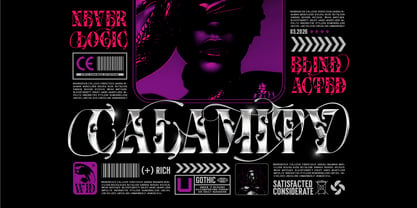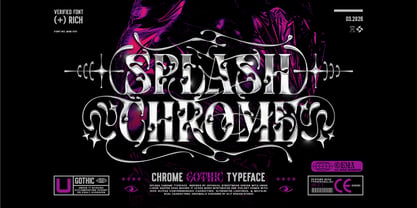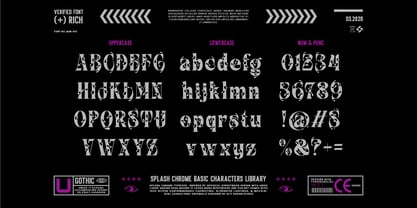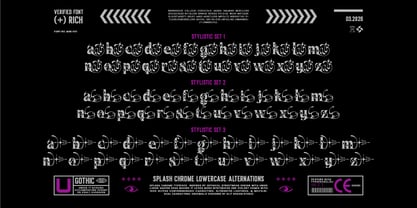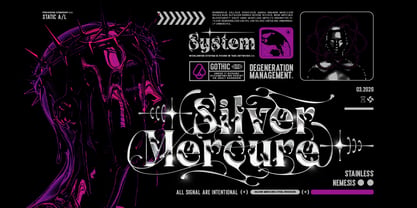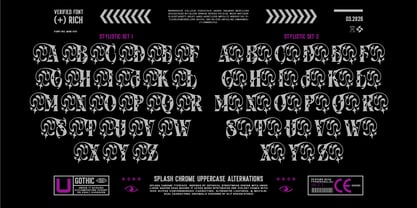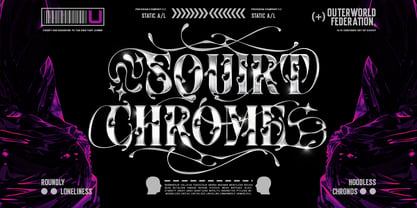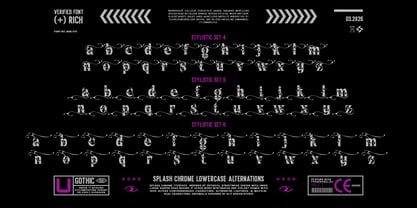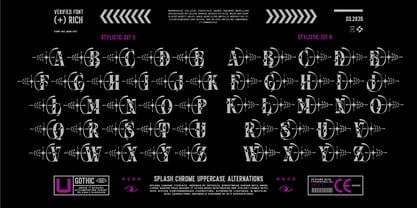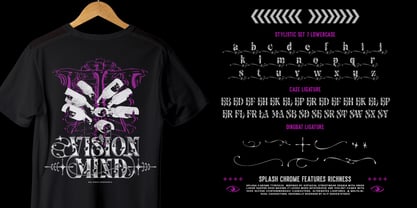
Splash Chrome
by Alit Design
The Splash Chrome Font Family was designed by Alit Suarnegara and published by Alit Design. Splash Chrome contains 1 styles. More about this family
Splash Chrome – The Future of Liquid Typography Inject a dose of high-octane energy into your designs with Splash Chrome. This font is a masterclass in modern aesthetics, blending the fluidity of liquid mercury with the sharp, aggressive precision of cyberpunk futurism. Splash Chrome isn't just a typeface; it’s a visual statement. Designed with dynamic, flowing strokes and razor-sharp terminals, it captures the essence of speed, tech, and "chrome-culture." Whether you are aiming for a Y2K revival, a high-tech streetwear vibe, or a futuristic automotive look, this font delivers a polished, metallic edge that demands attention. Key Features: Fluid & Sharp Geometry: A unique balance of organic "splat" curves and sharp, geometric edges. Futuristic Visual Impact: Perfectly suited for high-end branding that needs to look ahead of its time. Versatile Stylistic Alternates: Includes specialized glyphs to help you customize the "flow" of your text. Full Professional Set: Comes with Uppercase, Lowercase, Numbers, Punctuation, and Multilingual support. Perfect For: Streetwear & Fashion Brands: Create iconic logos and apparel graphics. Music & Entertainment: Perfect for techno/electronic album covers, rave posters, and festival branding. Gaming & Esport: Bold headers and UI elements that look "leveled up." Digital Art & 3D Renders: Works seamlessly as a base for chrome, glass, or liquid textures in 3D workflows. > Design Tip: Splash Chrome performs best when used with metallic gradients, glowing neon effects, or high-contrast black-and-white layouts. Scale it up large to let the intricate "chrome" details shine. Elevate your creative arsenal. Grab Splash Chrome today and start designing the future.
Designers: Alit Suarnegara
Foundry: Alit Design